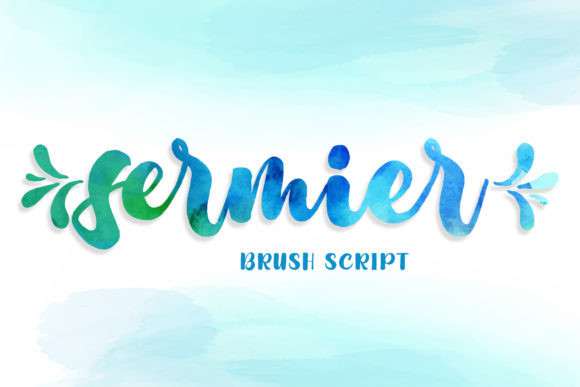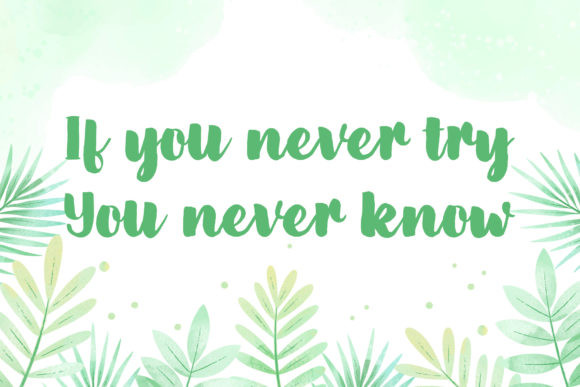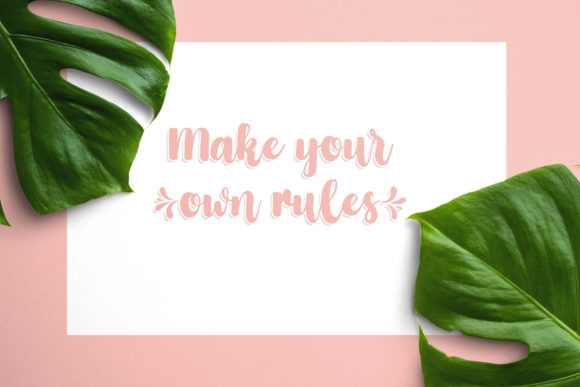
Sermier Font
Sermier is a hand-brushed font. It features gorgeous ligatures and swashes. It will look outstanding in any context, whether it’s being used on busy backgrounds or as a standalone headline!